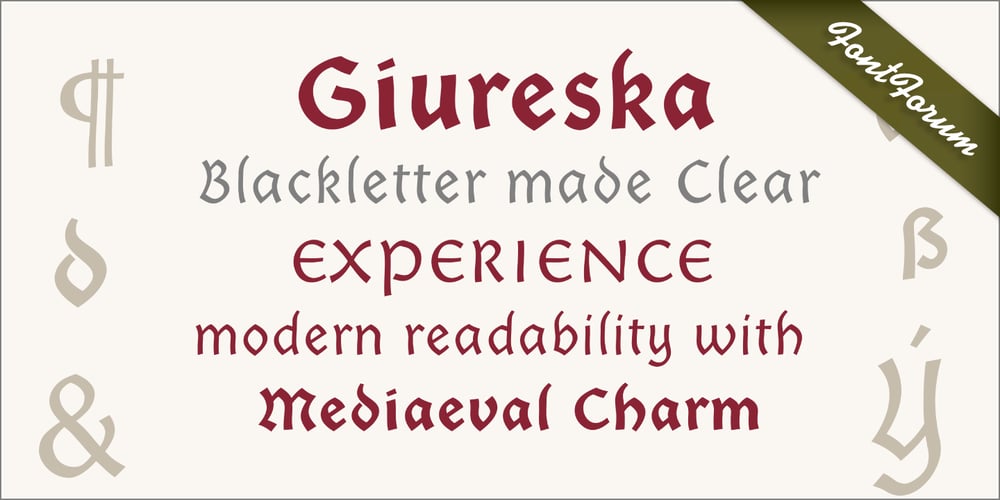
Giureska Font Family was designed by João Henrique Lopes and published by URW Type Foundry. Giureska contains 5 styles and family package options. I always admired the beauty of Gothic letters, but lamented their low readability. The revivals of Gothic faces are beautiful, but they revive everything, including the traits that prevent readability. Blackletters are fine in ads and titles, but can’t be used in long texts (like books on Middle Ages, Medieval romances etc) where they would be the perfect historical choice. And I wanted to change this scenario. With Giureska, instead of taking one particular face to revive, I chose the best traits from many Gothic faces, i.e. the forms that were pleasant to look and easy to read. For the ‘small caps’, I studied uncial scripts and made a similar selection, adapting everything to make a unified font. With three weights, true italics and the uncials, Giureska can endure a variety of projects, bringing the appeal of Middle Ages much beyond the cover.